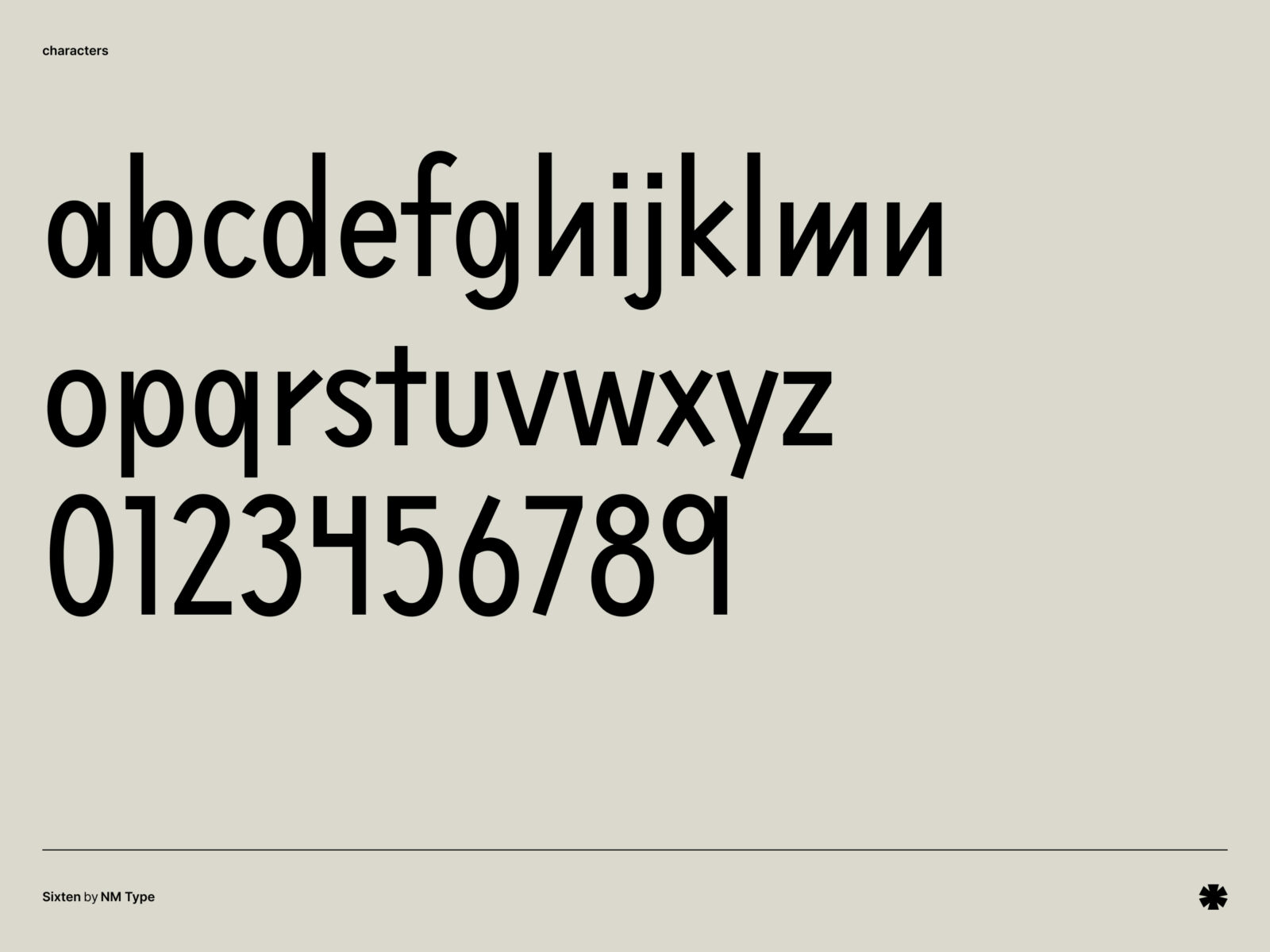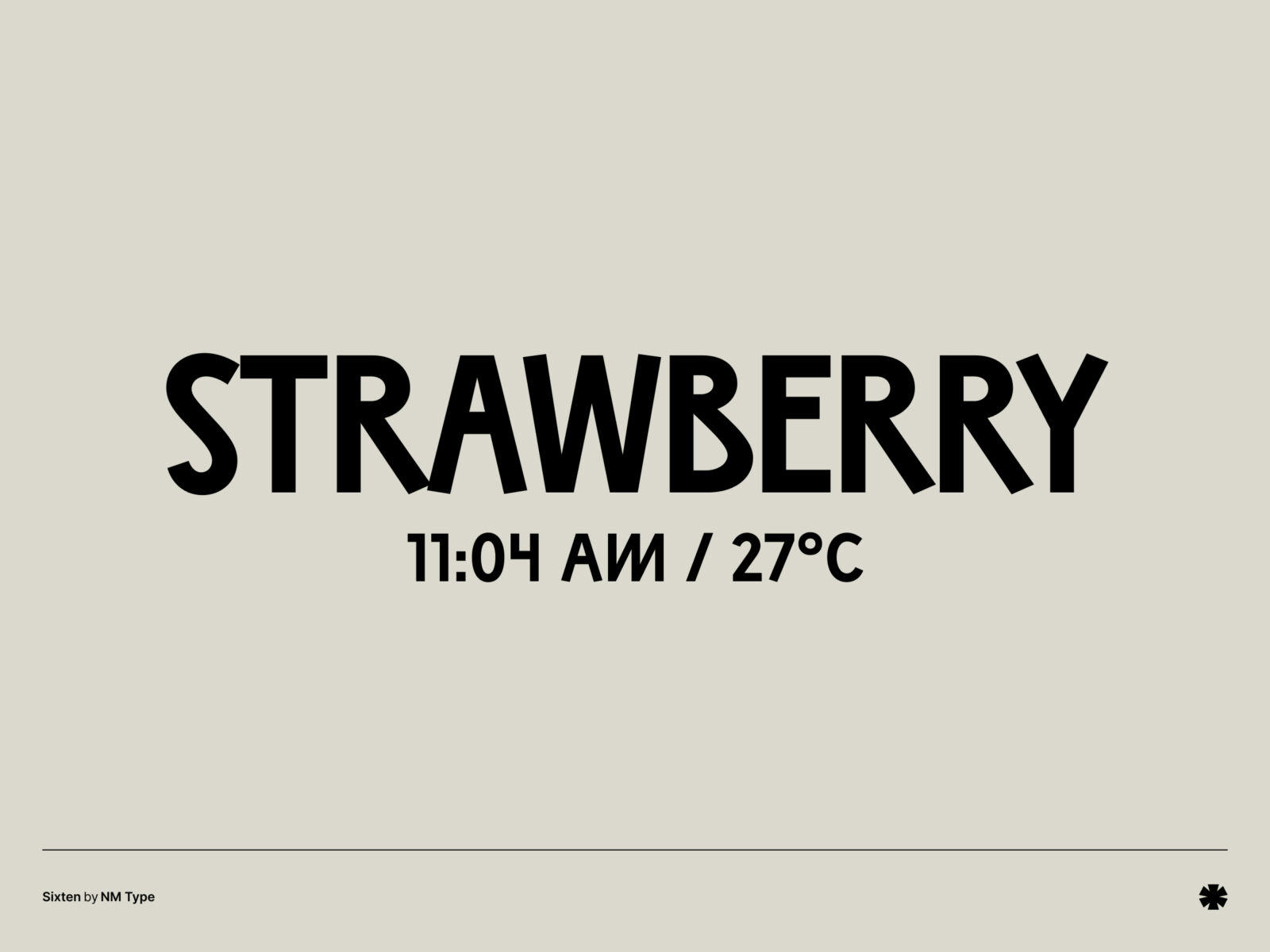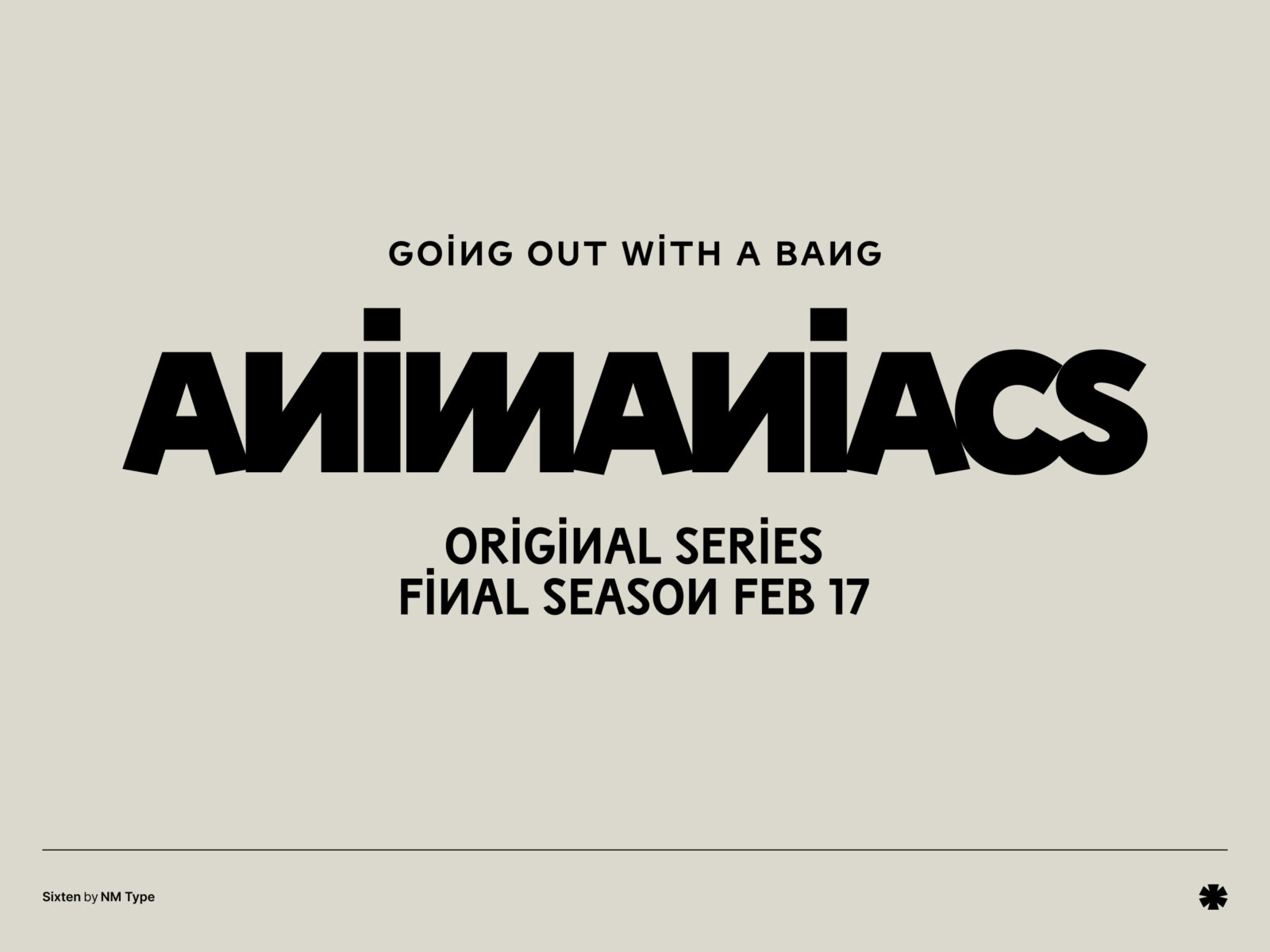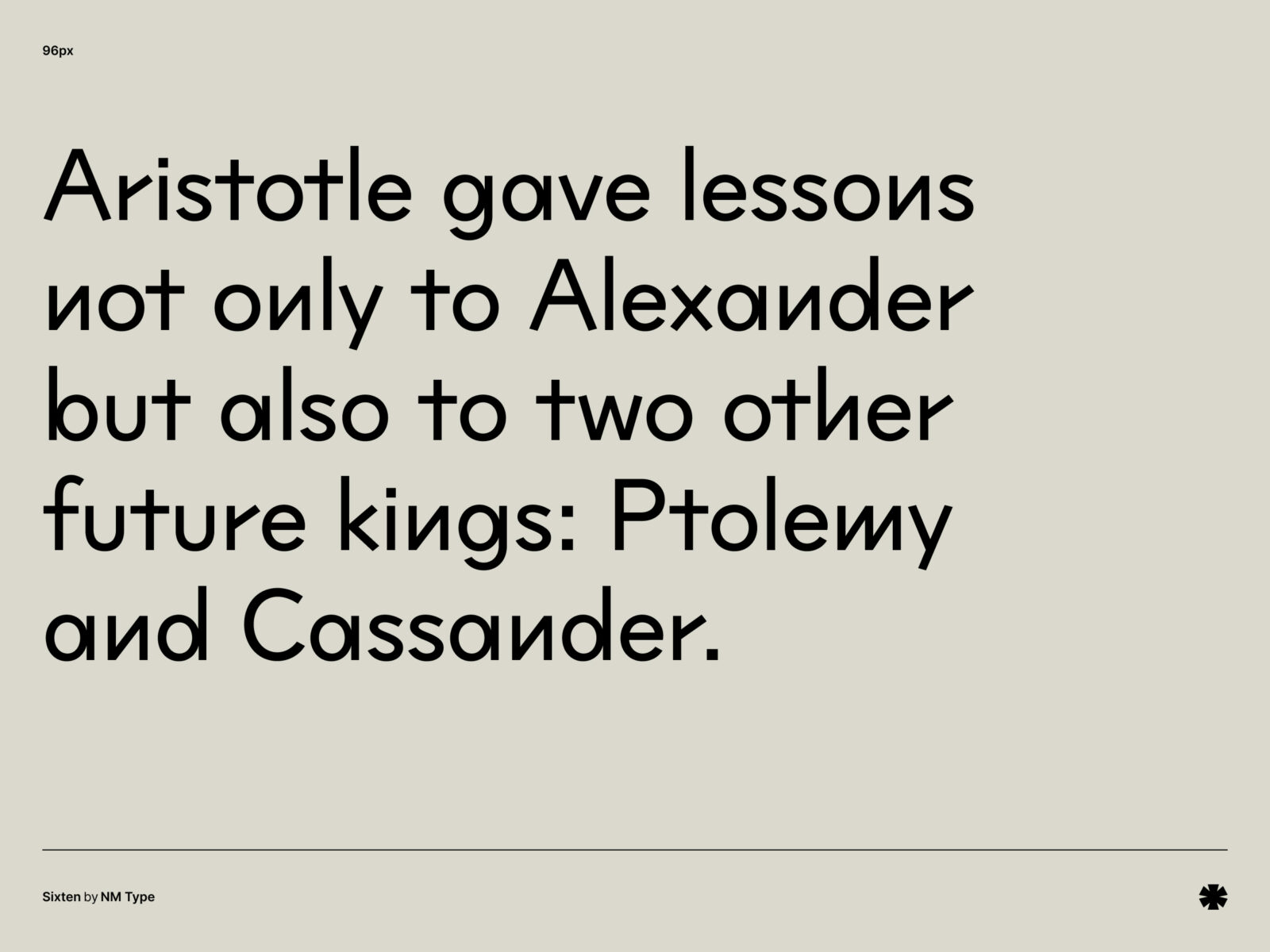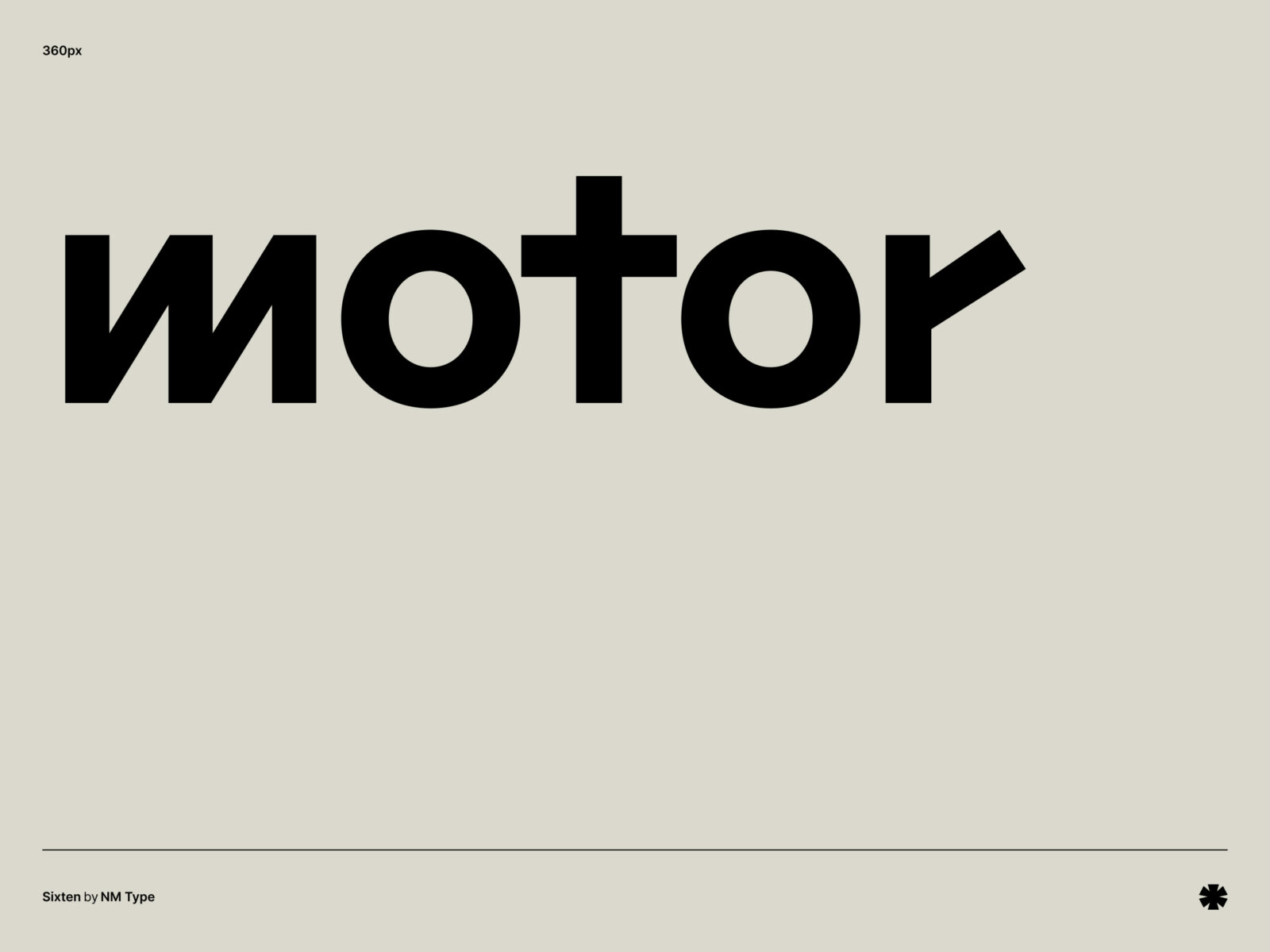
Sixten has an almost childish, light-hearted character to it. Dots on the letter I and the reverse use of the letter N make it seem a perfect fit for movie titles or cartoons.